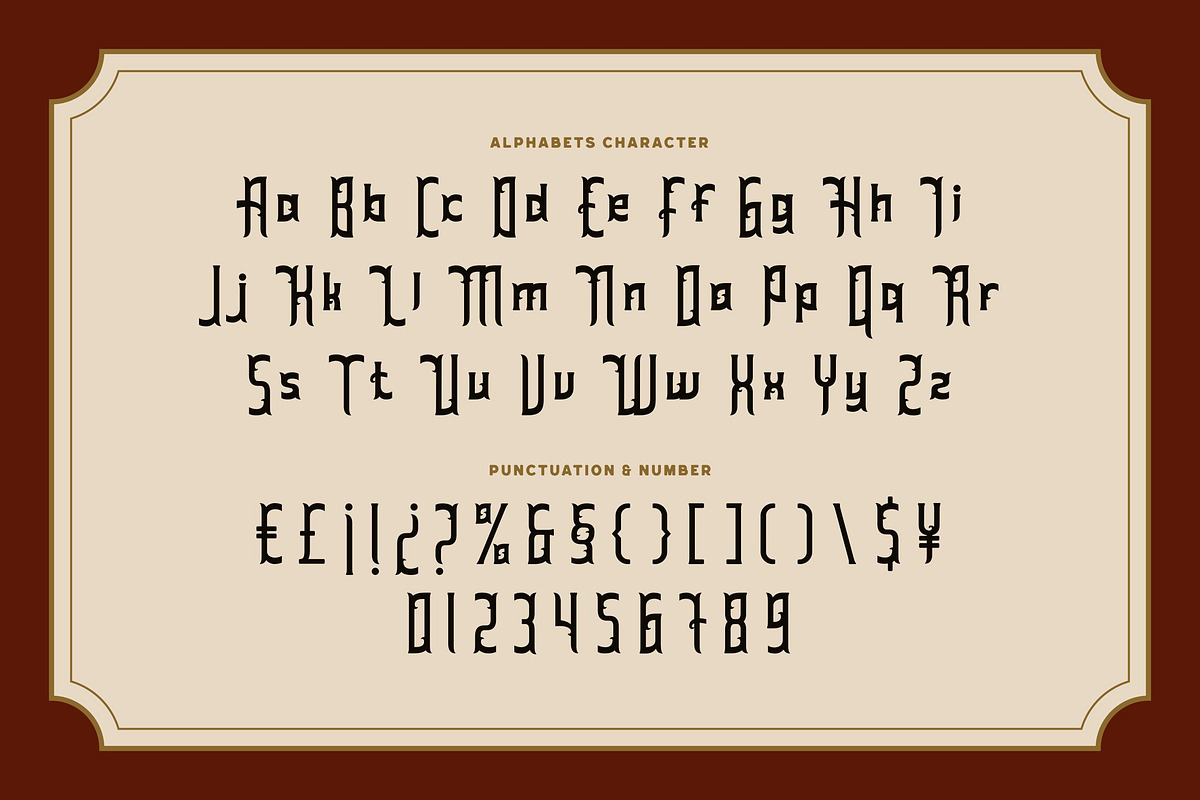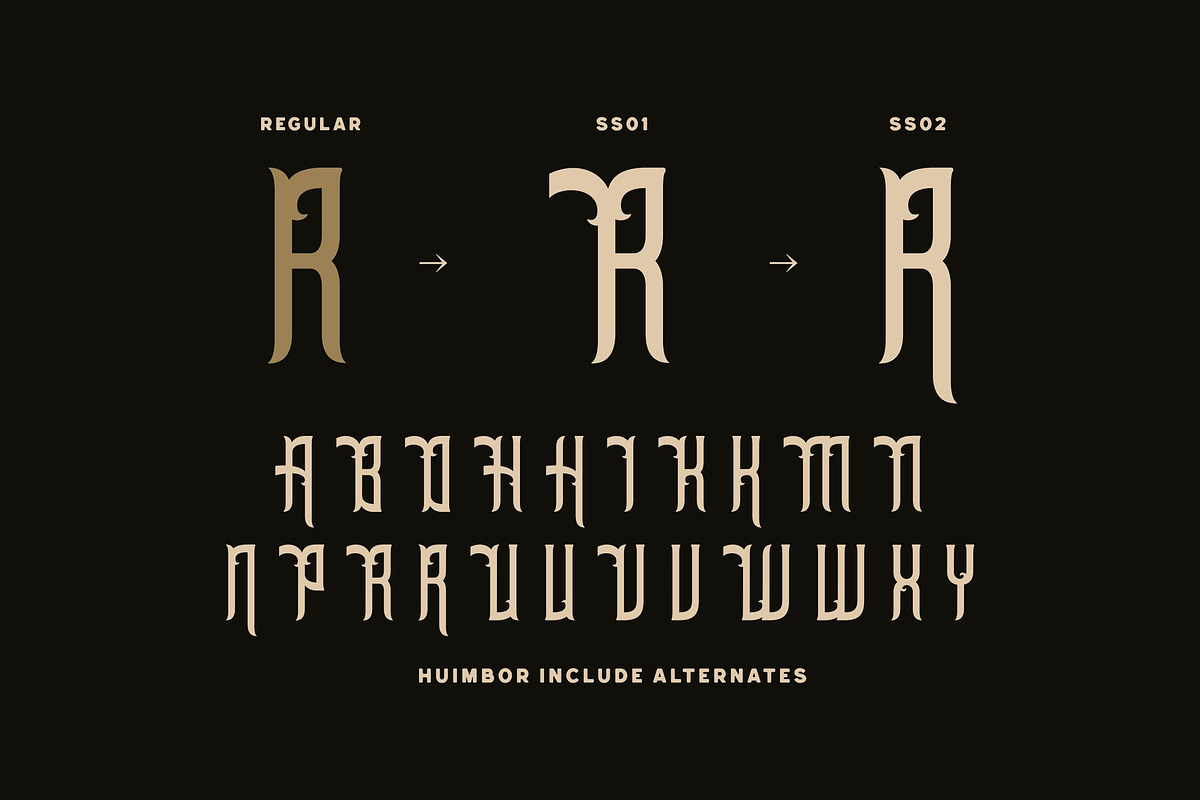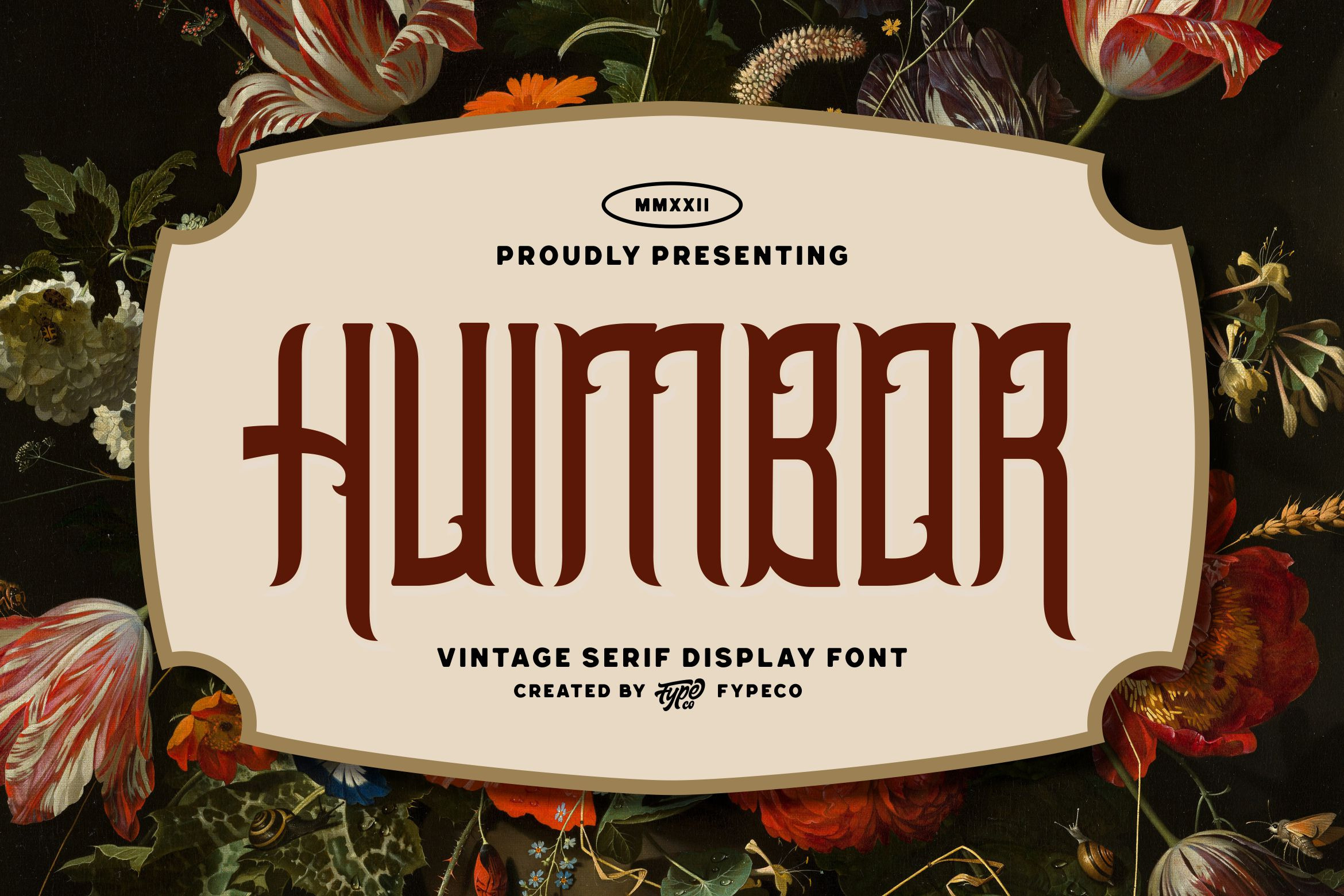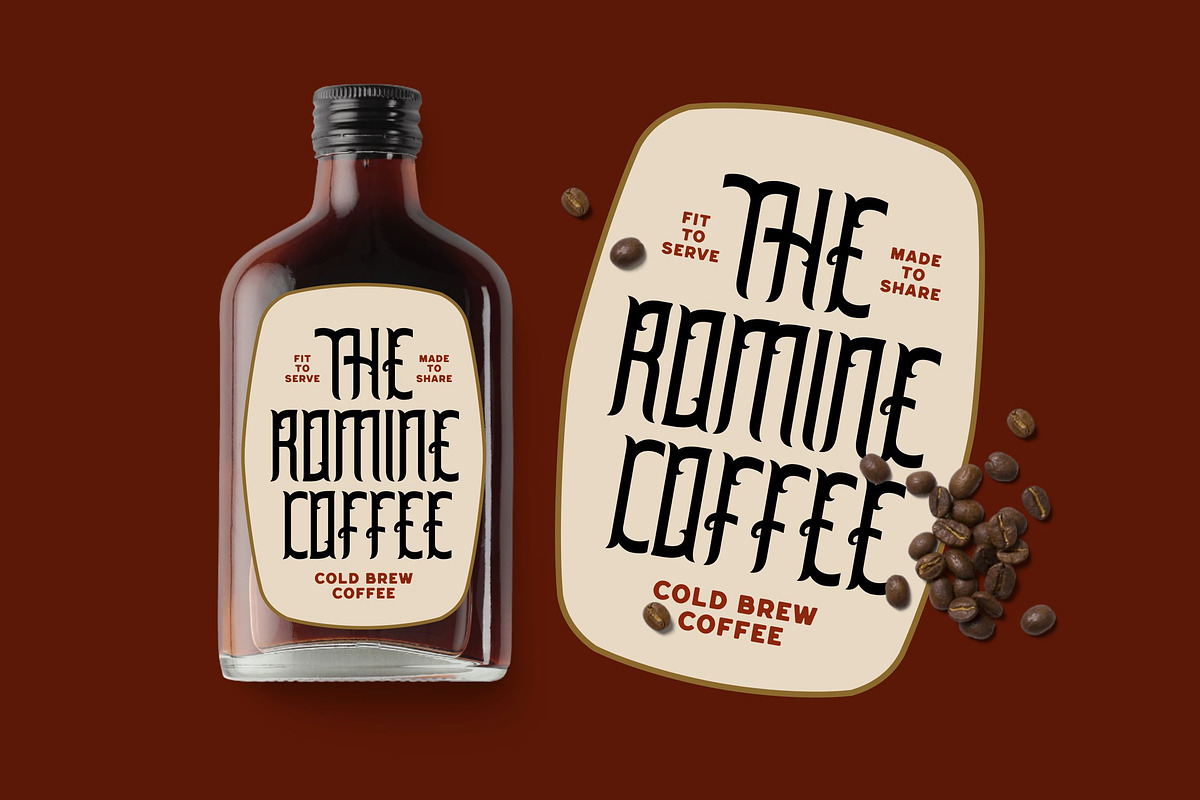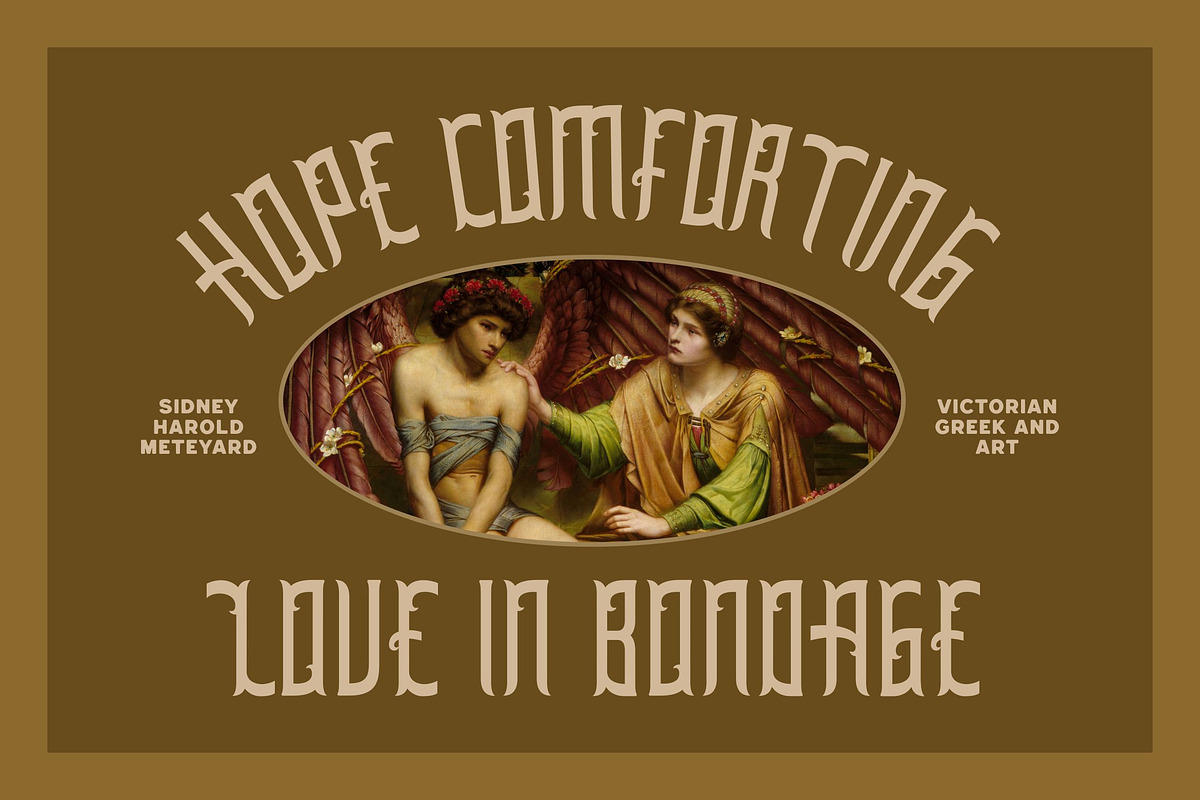
Huimbor - Vintage Serif Display Font
Huimbor is a vintage serif display font with modified ornaments that make it look prettier. This font that can be categorized as a Victorian font is classified as creating a vintage impression, this font is an all caps font so it looks beautiful but strong, suitable for vintage designs such as on labels or designs that are in the direction of art.
- Alternatives